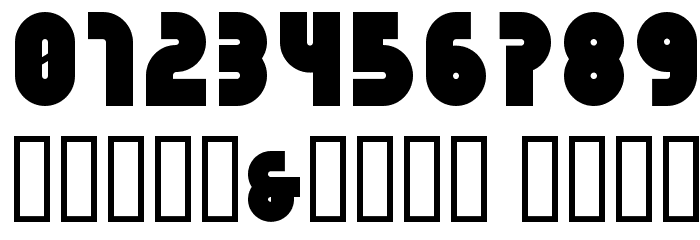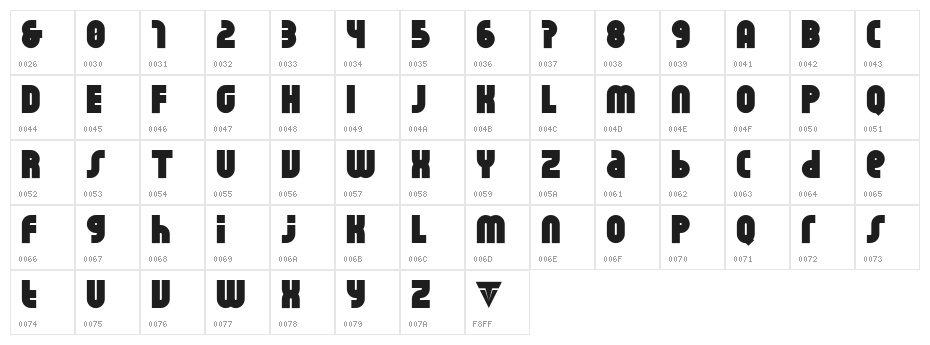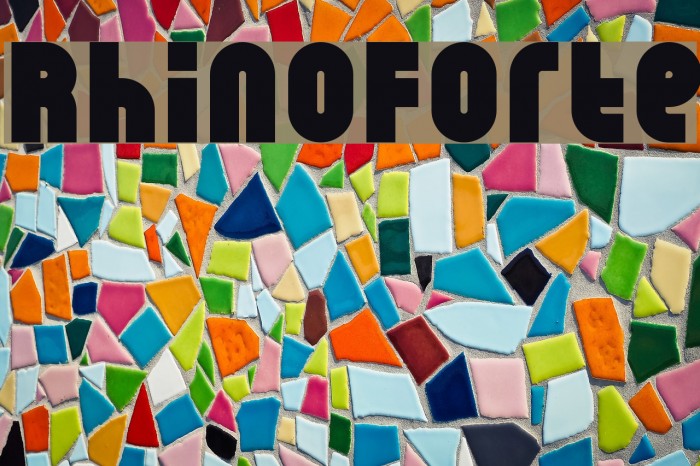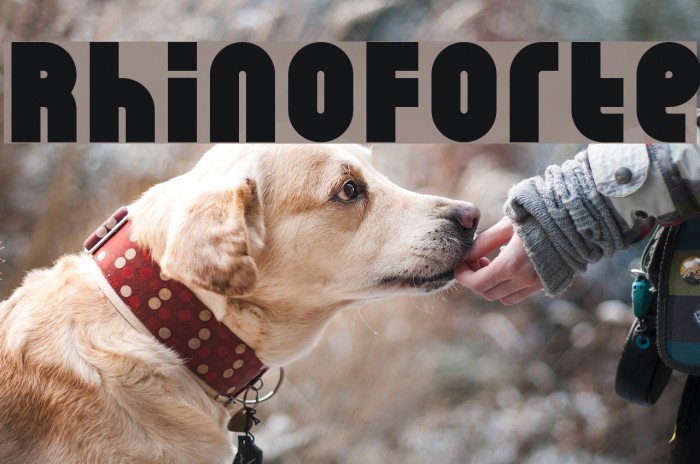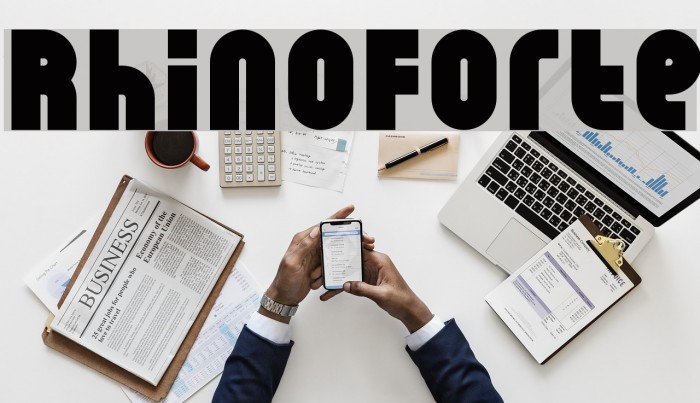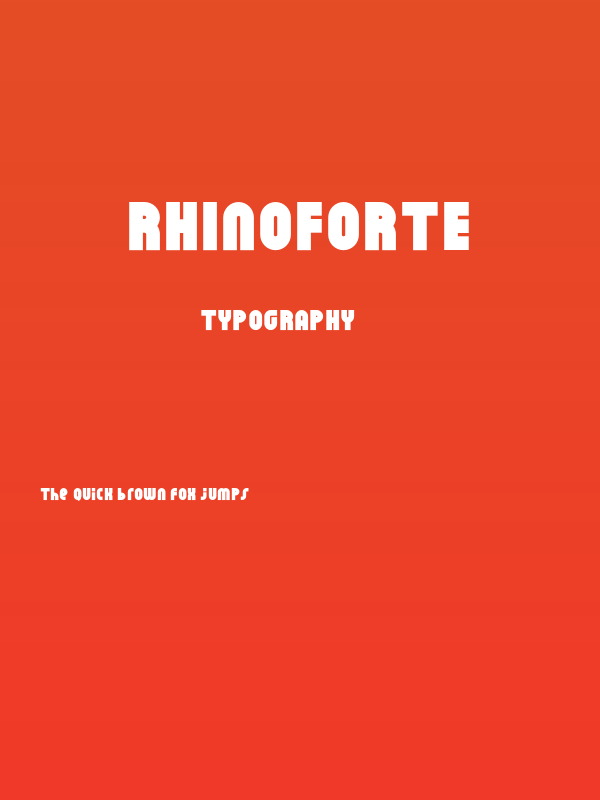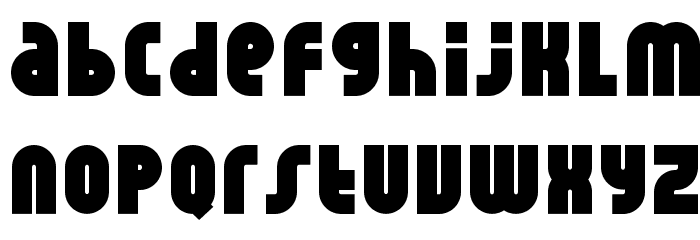
RhinoForte Font
RhinoForte Description
This font features bold, geometric letterforms with a strong presence. The characters are uniformly thick, creating a solid and impactful look. The uppercase and lowercase letters maintain a consistent style, with rounded edges and a blocky appearance. The numerals are equally bold, ensuring readability and uniformity across all characters. Special characters are designed to match the overall aesthetic, providing a cohesive look. This font is ideal for making a statement with its robust and assertive design.
| Proposed Projects | Ideal for posters, headlines, branding, and any project needing a bold, impactful typeface. |